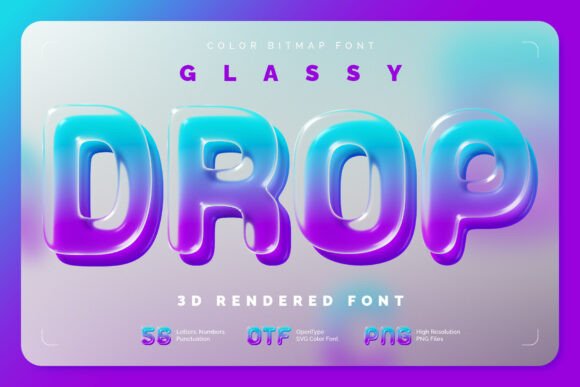
Introducing Glassydrop Font: A Revolutionary 3D Typeface
In the world of typography, innovation is key to standing out in a crowded creative landscape. One font that has been making waves in the design community is Glassy Drop, a modern 3D typeface that captivates with its unique liquid aesthetic. This creative color bitmap OpenType-SVG font features abstract, rounded glass letters set against a smooth, refractive gradient backdrop, creating a transparent and dynamic visual experience.
Key Features of Glassy Drop Font
- Unique Liquid Aesthetic: Glassy Drop boasts a one-of-a-kind design that mimics the appearance of liquid glass, adding a touch of sophistication and elegance to any design project.
- OpenType-SVG Font: As a color bitmap OpenType-SVG font, Glassy Drop offers a wide range of possibilities for creative expression, from digital designs to print materials.
- Abstract, Rounded Glass Letters: The font’s abstract, rounded glass letters are carefully crafted to create a sense of depth and dimensionality, making them perfect for headlines, titles, and other display text.
- Smooth, Refractive Gradient Backdrop: The font’s smooth, refractive gradient backdrop adds a sense of movement and energy to the design, creating a truly dynamic visual experience.
Important Notes on Language Support and Limitations
While Glassy Drop is a versatile and innovative font, it is essential to note that it has some limitations. These include:
- Language Support: Glassy Drop currently supports only the English language and basic punctuation.
- Font Technology: As a relatively new font technology, Glassy Drop may have some limitations and quirks. However, it is designed to work seamlessly with most popular design applications.
Design Tips for Using Glassy Drop Font
To get the most out of Glassy Drop, here are some design tips to keep in mind:
- Experiment with Color: Glassy Drop’s color bitmap design makes it perfect for experimenting with different color schemes and combinations.
- Play with Texture: The font’s liquid aesthetic makes it a great choice for adding texture and depth to your designs.
- Use for Display Text: Glassy Drop is perfect for headlines, titles, and other display text, where its unique aesthetic can really shine.
Glassy Drop is a revolutionary 3D typeface that is sure to make a statement in any design project. With its unique liquid aesthetic, compatibility with popular design applications, and versatility in terms of color and texture, this font is a must-have for any creative looking to add a touch of sophistication and elegance to their work.